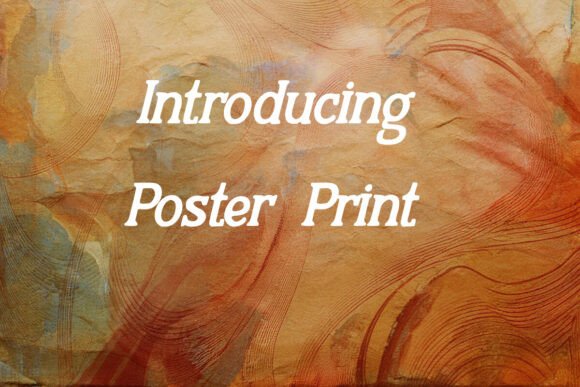
Introduction to Poster Print Font
Experience the eclectic charm of Poster Print font, a versatile choice perfect for everything from glitzy t-shirts and unique stickers to chic branding solutions.
Whether youโre designing hip magazines, crafting expressive SVG files or concocting heartfelt greeting cards, Poster Print font is your perfect design accomplice Engage with the elegantly designed font for your Cricut projects, to bring your ideas to vivid reality.
Key Features of Poster Print Font
Why Choose Poster Print Font?
Poster Print Font offers exceptional quality and versatility, making it a valuable addition to your design toolkit. Whether you’re creating for personal projects or commercial use, Poster Print Font delivers professional results.